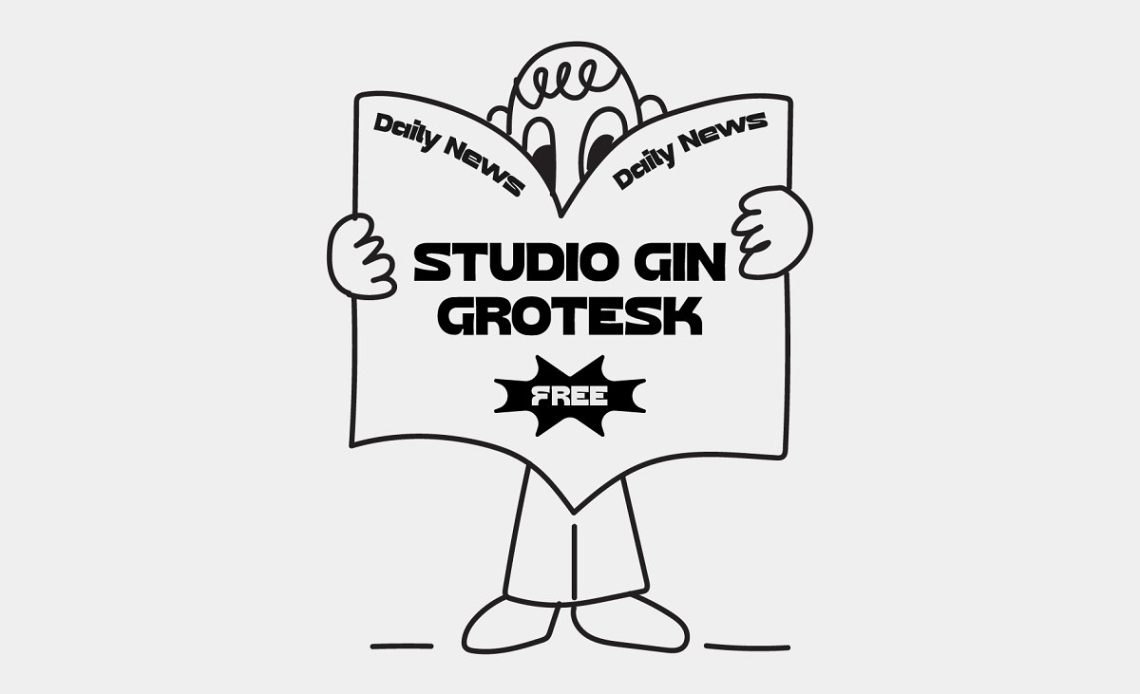
Introducing GIN - Grotesk Typeface, a font family that breaks the mold and brings a touch of creativity to your designs. Created by the talented Leonit Gashi in collaboration with Studio Gin, this typeface is anything but ordinary.
Gin Grotesk is not your typical sans serif font. It's quirky, fluid, and experimental, making it perfect for those looking to add a unique twist to their projects. Whether you're designing a logo, website, or any other visual content, this font will instantly catch the eye and leave a lasting impression.
What sets Gin Grotesk apart is its ability to balance seriousness with playfulness. Studio Gin's description of their work perfectly captures the essence of this typeface. Imagine businessmen confidently doing wheelies while sipping on Gin & Juice – that's the spirit that Gin Grotesk embodies. It's a font that knows when to be professional but never takes itself too seriously.
Not only does Gin Grotesk bring creativity to the table, but it also offers versatility. Its fluid nature allows it to adapt to various design styles and purposes. Whether you're aiming for a clean and minimalistic look or a bold and attention-grabbing design, this font has got you covered.
But it's not just about aesthetics – Gin Grotesk is designed with user experience in mind. Its legibility ensures that your message is conveyed effortlessly, while its captivating presence adds that extra touch of personality. With Gin Grotesk, your words will not only be seen but felt.